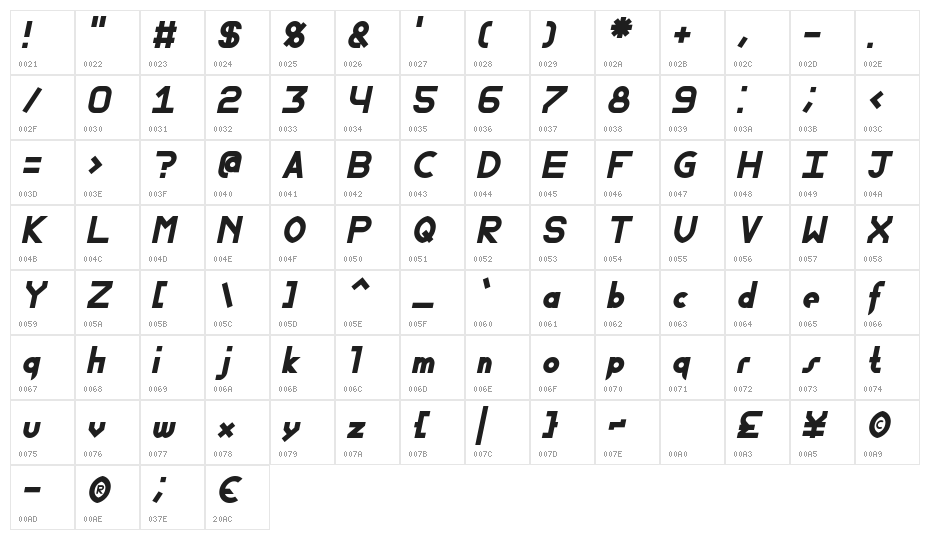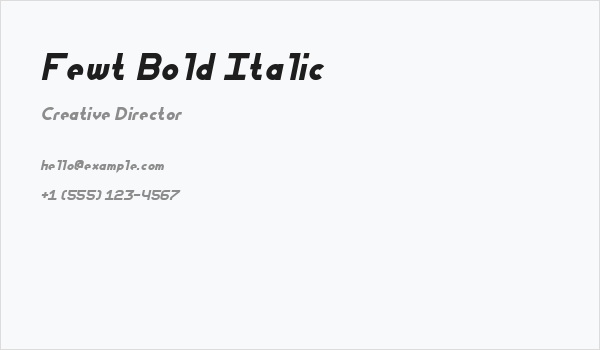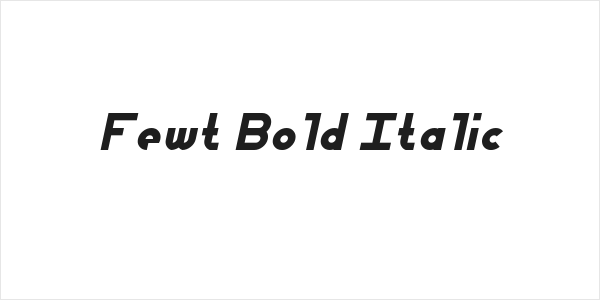
Fewt Bold Italic Font
Fewt Bold Italic Description
This font exhibits a bold and italicized style, characterized by its dynamic and slanted letterforms. The uppercase and lowercase letters maintain a consistent slant, giving the font a sense of motion and energy. The strokes are thick and uniform, providing a strong visual impact. The numbers and special characters follow the same stylistic approach, ensuring cohesion across all glyphs. This font is designed to capture attention and convey a modern, assertive tone.